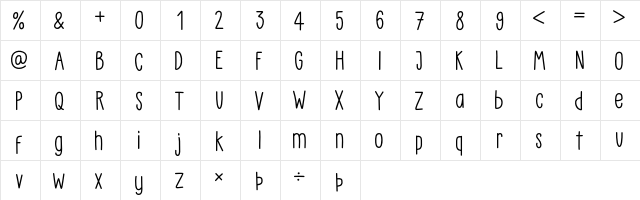
Little Pea - Demo Regular
| Designer | Kadek Adi Mahardika |
Design Context for Little Pea - Demo Typeface
Little Pea - Demo takes a measured approach to typography — its balanced proportions and neutral character make it a reliable workhorse for both digital and print work.